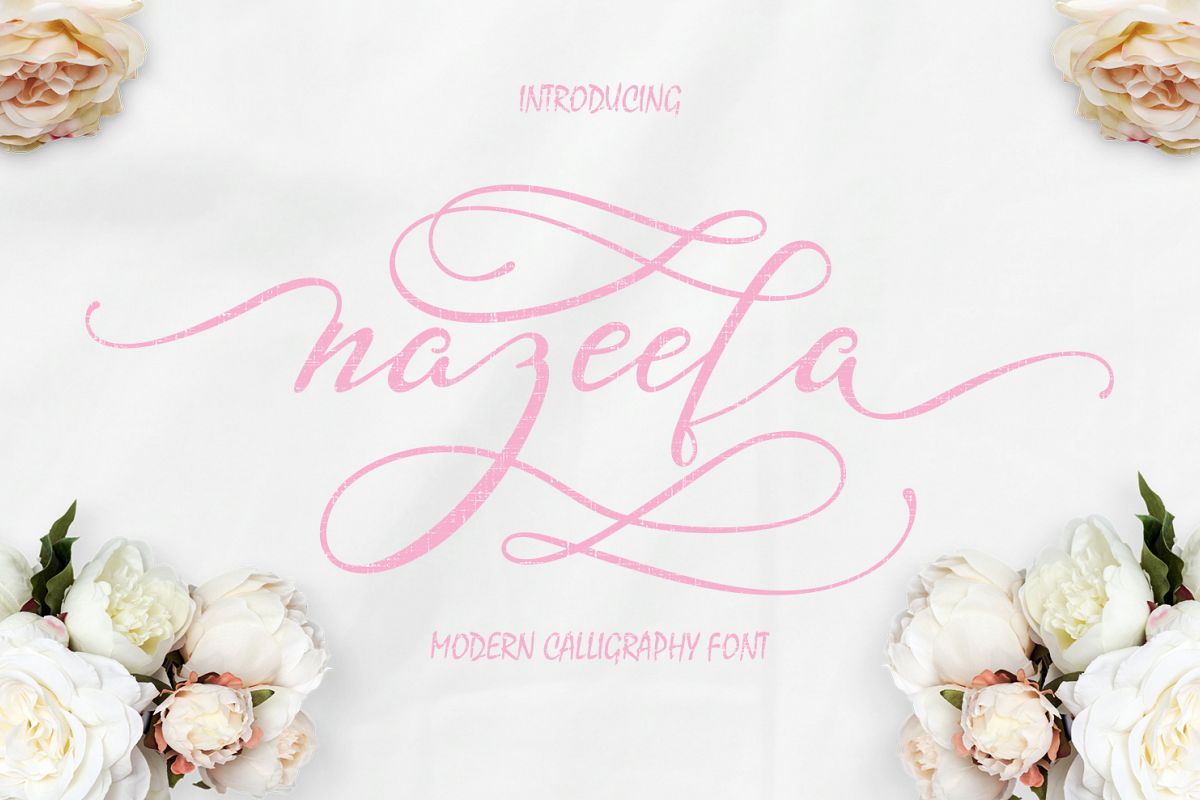
Aseek Nazeefa Font finally and Ready also to Publishing Now, Nazeefa is a modern calligraphy typeface with more variation stylistics sets and many features. Nazeefa very suitable for feminime design, clothing, wedding event, wedding invitation and many more to design what you want.
Nazeefa features with :
• Basic Glyphs, Numerals, Symbol and punctuation
• Stylistic Sets 1 - 6
• Ligatures and Discretionary Ligatures
• Swash
• Contextual Alternates
• Bonus Ornament ( a - z )